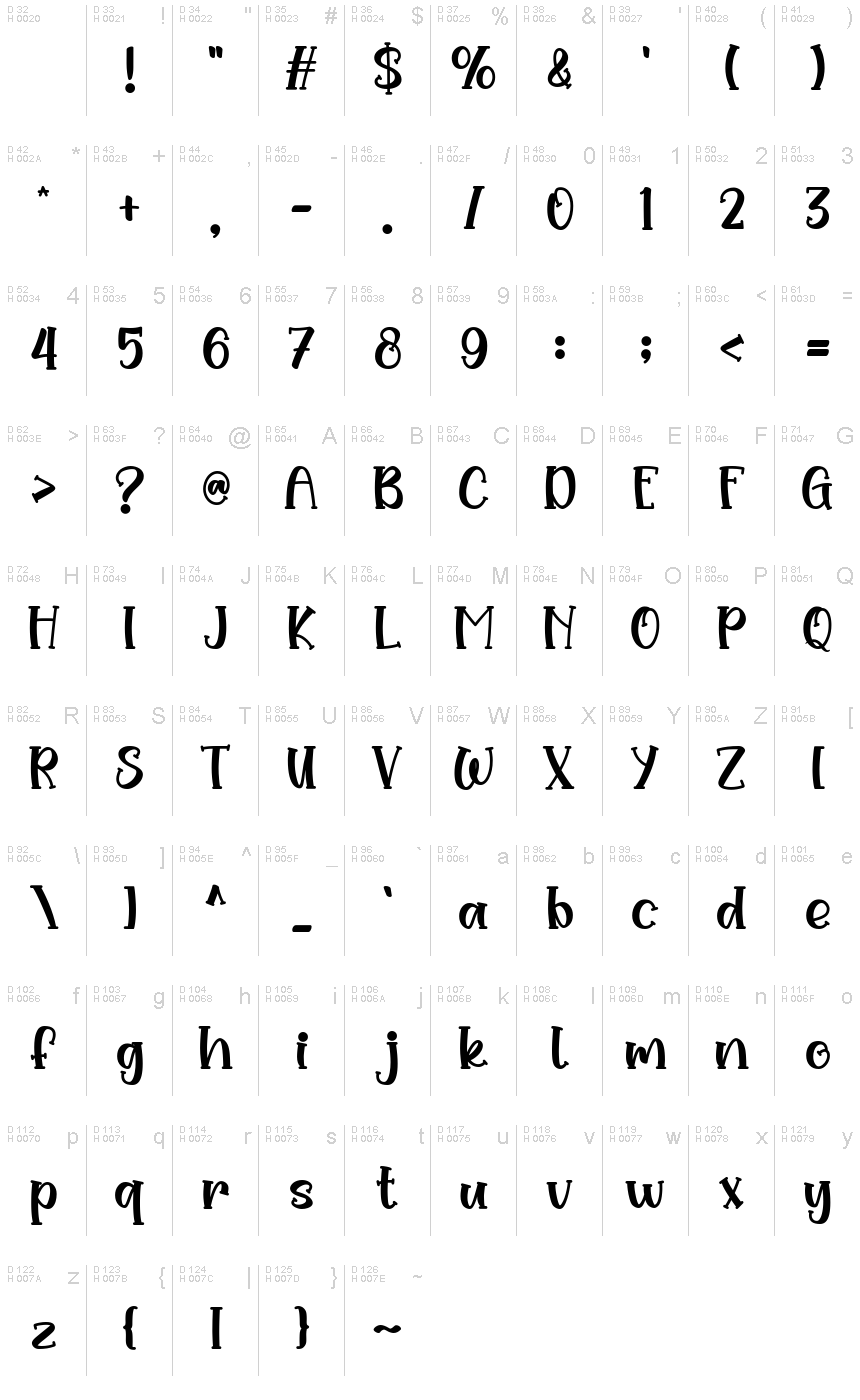
Wina Elicia is a whimsical delight crafted by Nirmala Creative that encapsulates the playful and imaginative essence of cartoon style. Its charming irregularities and bouncy curves evoke a sense of fun and creativity, making it an exceptional choice for designs that aim to inspire joy and nostalgia. The font's bold presence ensures legibility while maintaining an air of lightheartedness.
Perfect for branding projects, children's books, or any platform where a touch of cheer is needed, Wina Elicia effortlessly conveys warmth and friendliness. It stands out in posters, packaging, and digital interfaces alike, inviting smiles with every glance. Dive into the delightful world of Wina Elicia where each letter adds its own dash of personality to your creative ventures.